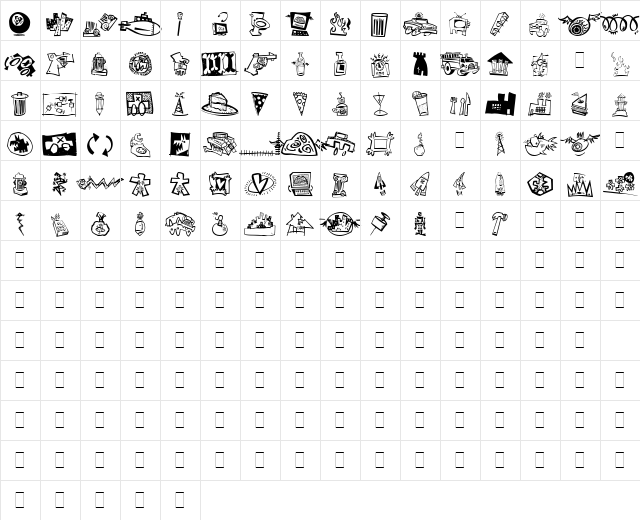
DF Urbans Plain Free Font
DF Urbans Plain
DF Urbans Family
Complete DF Urbans Plain glyph index. Displaying only characters natively supported by DF Urbans Plain font.
Design Context for DF Urbans
DF Urbans is a composed and adaptable typeface that performs quietly and consistently across a wide range of design contexts.